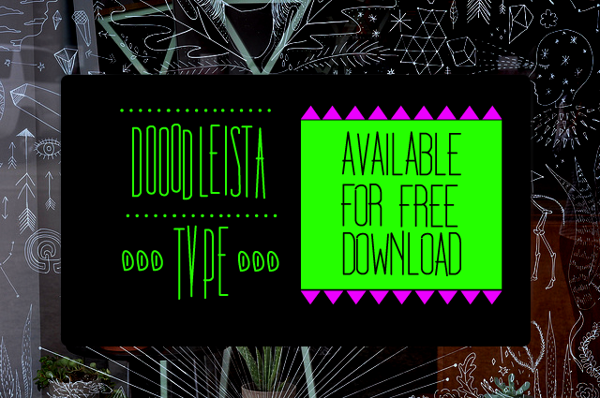
Dooodleista Type is available for free download!... Why Doodle? This question can be answered with 2 simple words. For Fun. This is the first and most important rule for doodle! Have fun with it! |